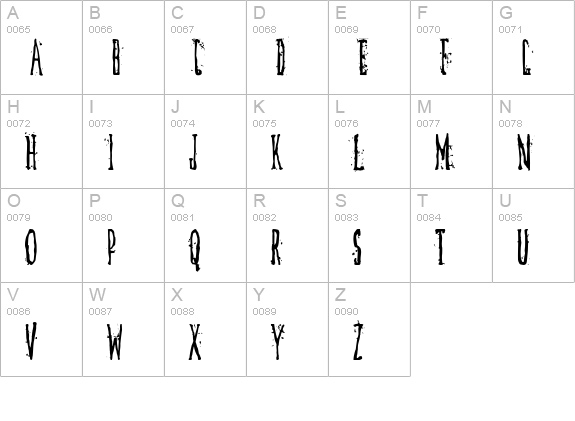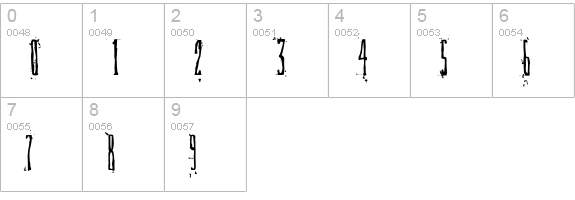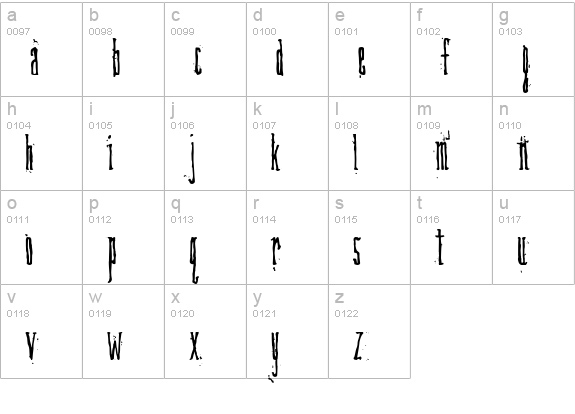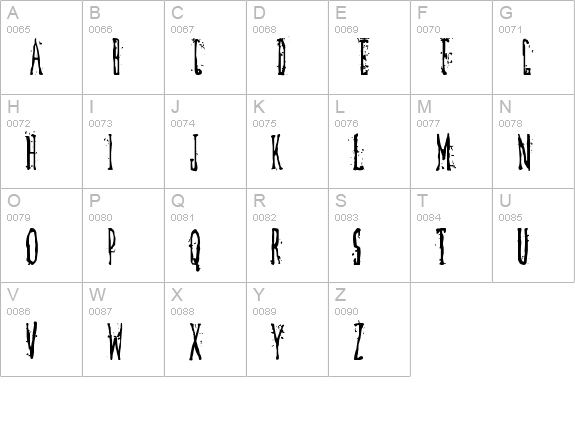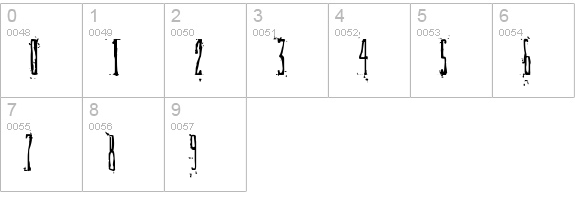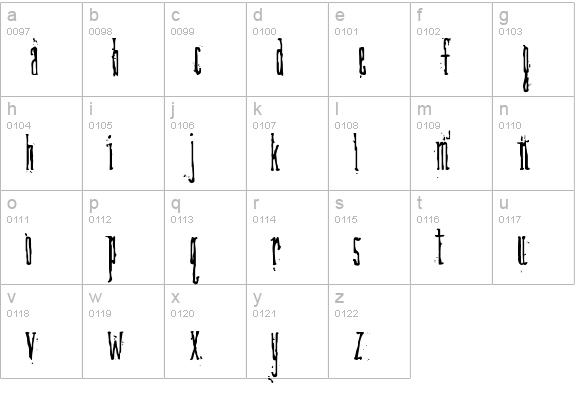
DirtyDeco Font Details
Introducing DirtyDeco font, a unique and edgy typeface that combines a gritty aesthetic with an art deco influence. This font exudes a sense of raw energy and urban sophistication, making it perfect for projects that require a bold and unconventional look. The jagged edges and rough texture of DirtyDeco give it a rebellious charm that sets it apart from more traditional fonts. What's even better is that DirtyDeco is completely free to download at FontsMarket.com, making it accessible to designers and creatives looking to add a touch of attitude to their work. Whether you're working on a poster, logo, or branding project, DirtyDeco is sure to make a statement and leave a lasting impression. Embrace the grit and glamour of DirtyDeco font and take your designs to the next level.